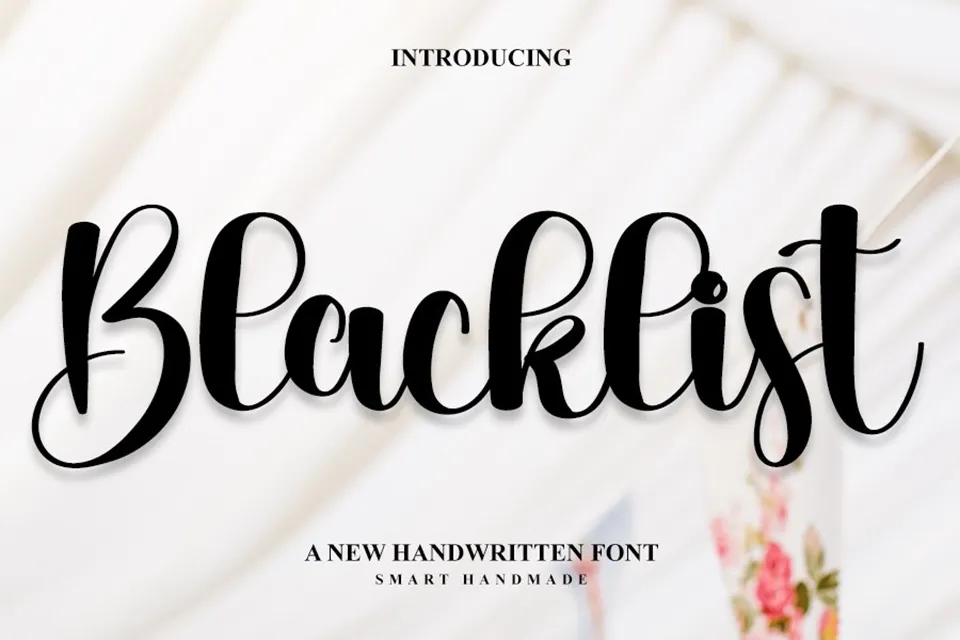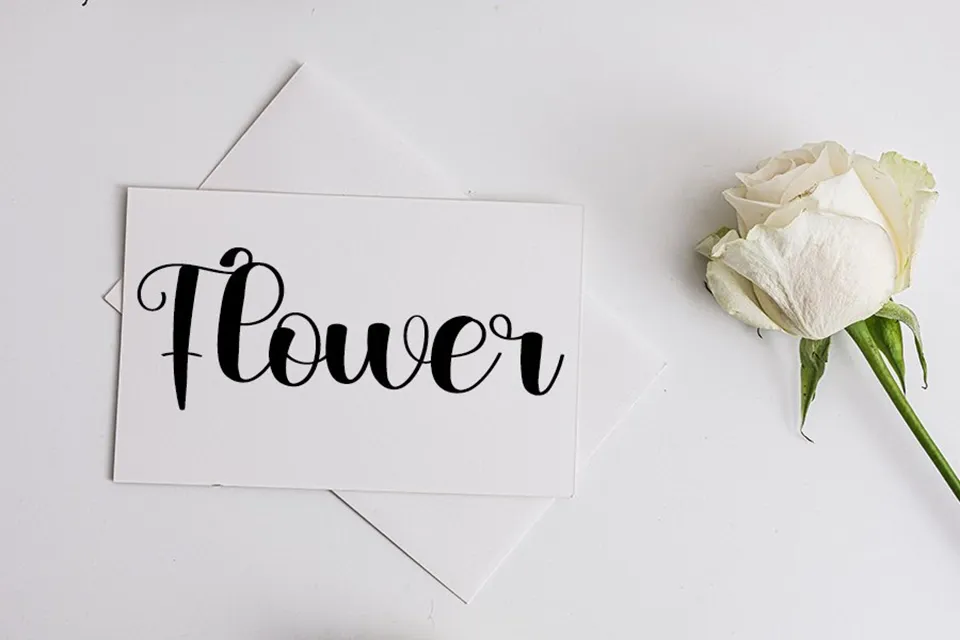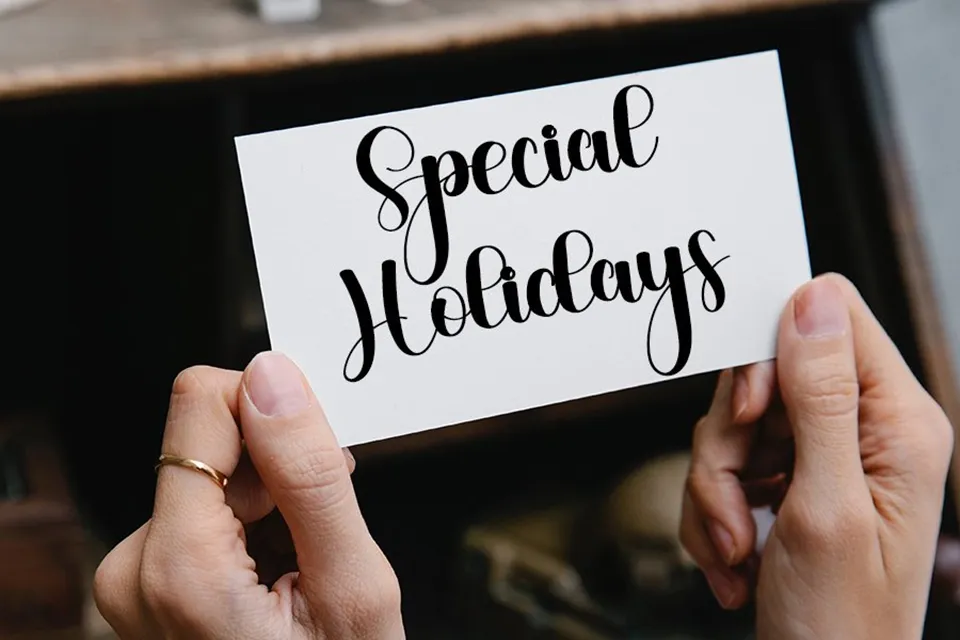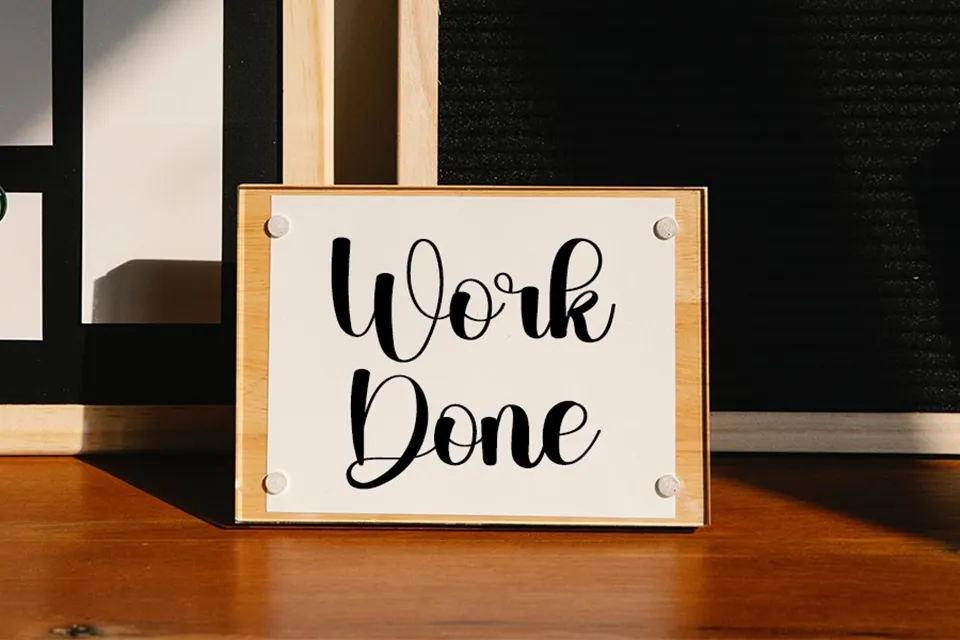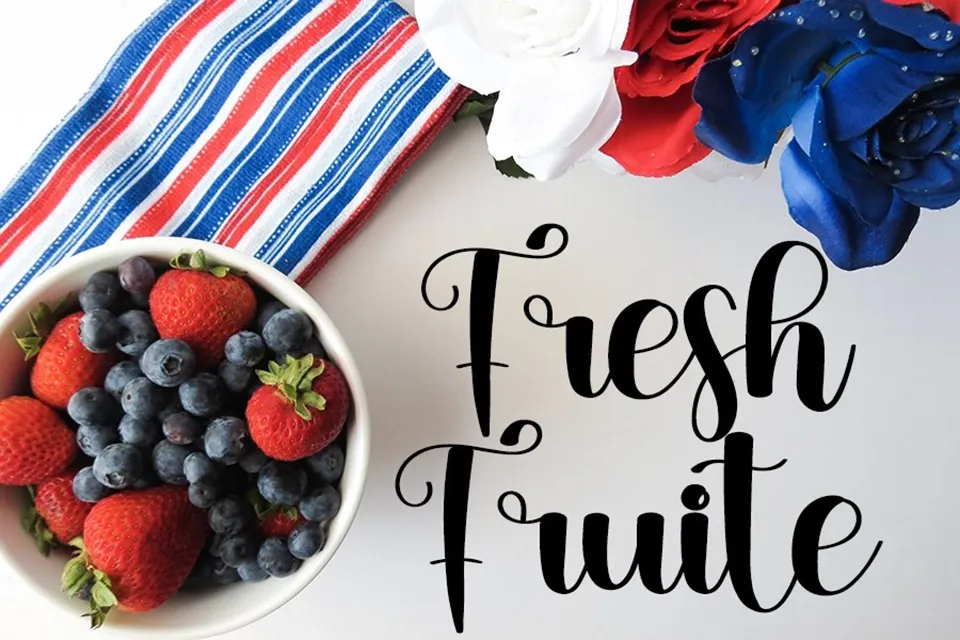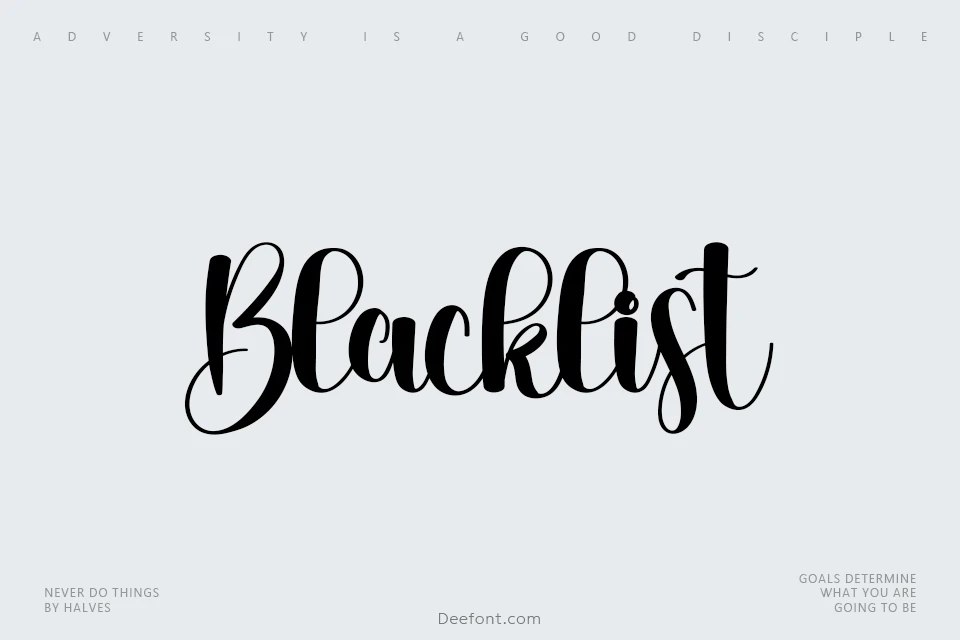
Blacklist Handwritten Font
Blacklist Handwritten Font is a stylish handwritten font that exudes both charm and elegance. Its natural curves and flowing letterforms make it perfect for creative projects such as wedding invitations, thank you cards, quotes, greeting cards, logos, business cards, and any design that benefits from a personal, handcrafted touch. The font is versatile, offering a warm and welcoming appearance that enhances both formal and casual designs.